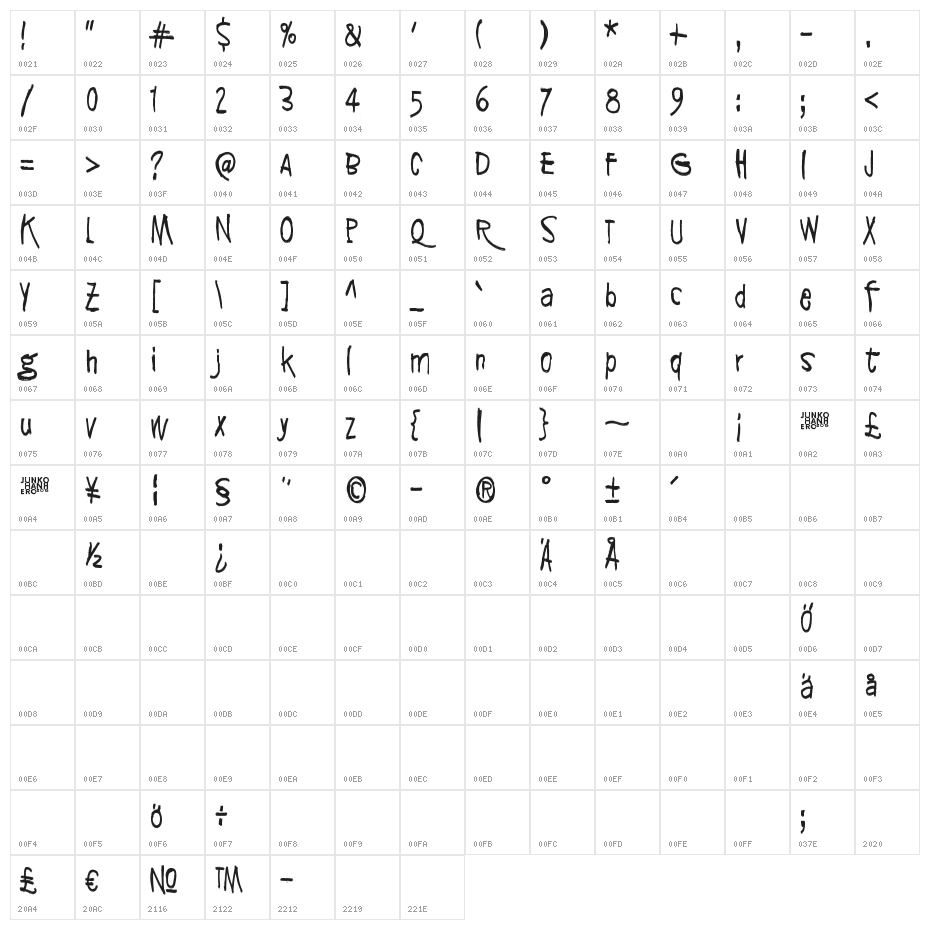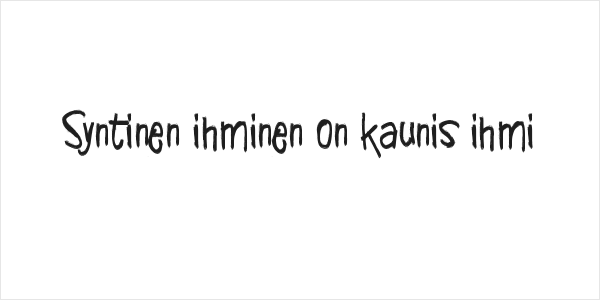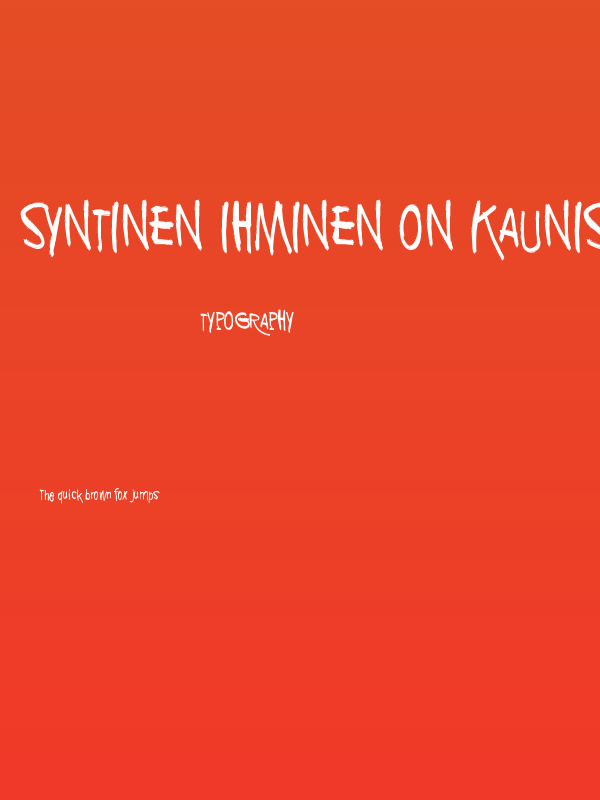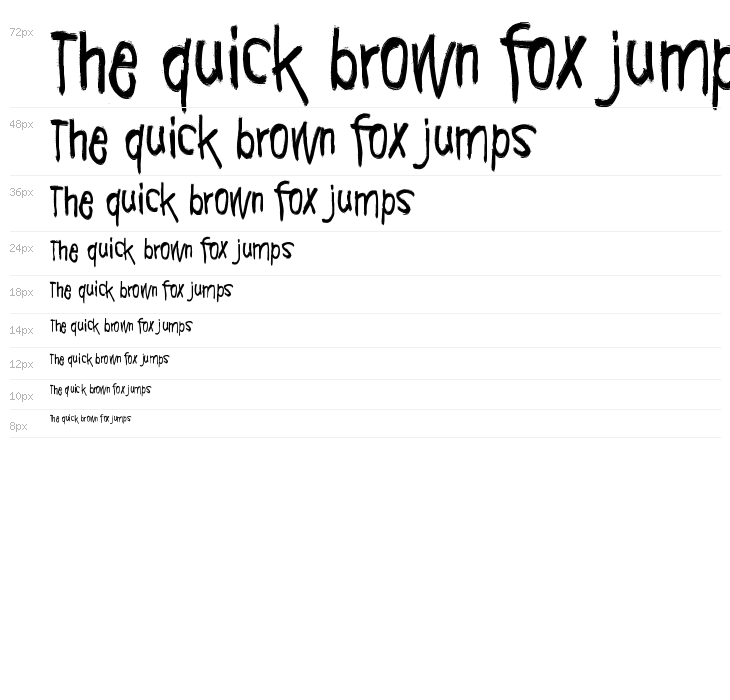
Syntinen ihminen on kaunis ihmi Font
Syntinen ihminen on kaunis ihmi Description
This font exhibits a bold and expressive handwritten style, characterized by its uneven strokes and playful, organic forms. The letters have a slightly rough texture, adding to the casual and artistic feel. The uppercase letters are tall and slightly narrow, while the lowercase letters maintain a consistent height, contributing to a cohesive appearance. The numerals and special characters follow the same stylistic approach, ensuring uniformity across all glyphs. This font's unique personality makes it stand out, ideal for projects that require a touch of creativity and individuality.
| Proposed Projects | Ideal for creative projects such as posters, invitations, greeting cards, and artistic branding. |